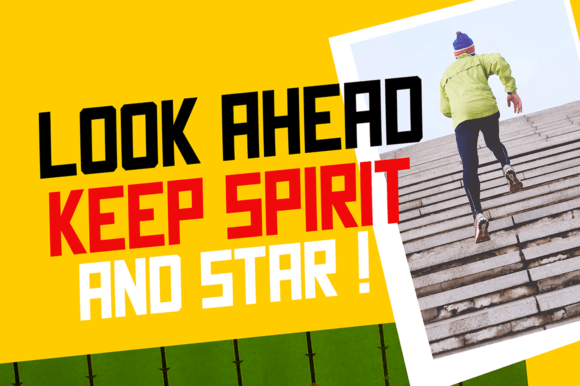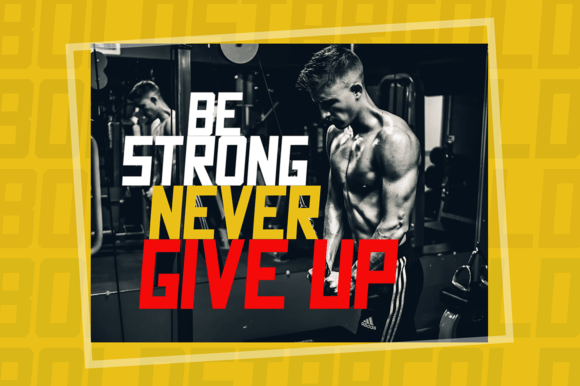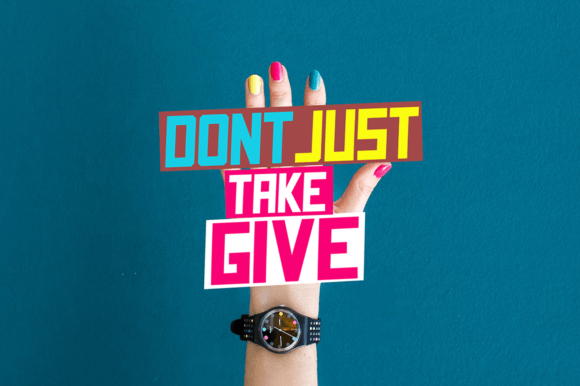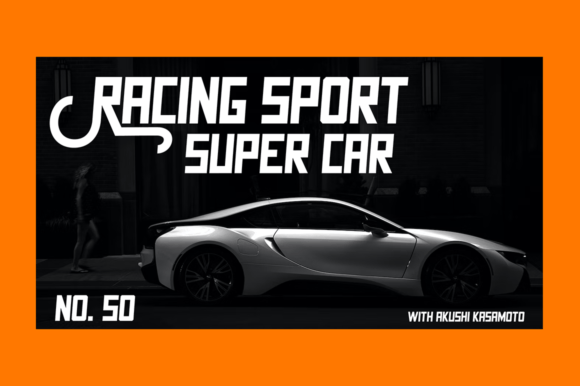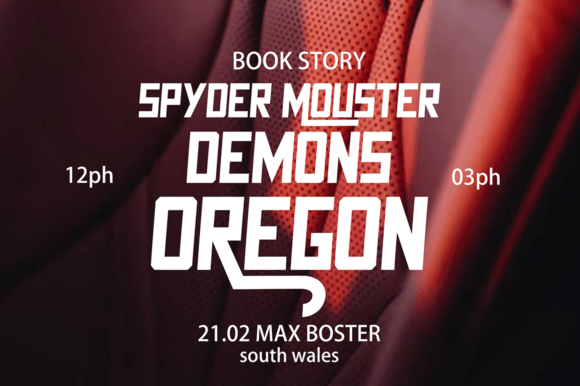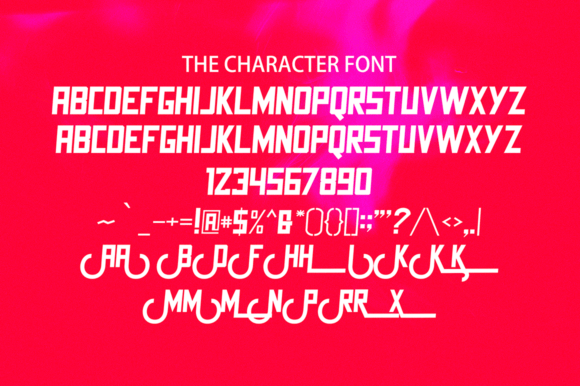
Unleash Your Creativity with Crash Demons Font: A Modern Display Powerhouse
In the realm of typography, few fonts manage to capture the essence of modernity and timelessness simultaneously. However, Crash Demons Font stands out as a remarkable exception, embodying both contemporary coolness and a classic appeal that refuses to fade. This article is your gateway to understanding the allure of Crash Demons and how it can elevate your design projects to spectacular heights.
The Distinctive Charm of Crash Demons Font
Crash Demons is not just another font; it’s an experience. Its incredibly distinct style is what sets it apart from the myriad of fonts available today. The moment you lay eyes on it, you’ll understand why it’s described as cool and modern. Each letter is crafted with precision, boasting a unique character that contributes to its timeless appeal. Whether you’re working on a branding project, crafting an eye-catching poster, or designing a captivating website, Crash Demons promises to add that extra oomph your design needs.
Why Crash Demons Should Be Your Go-To Display Font
So, what makes Crash Demons the perfect choice for your display font needs? Here are a few compelling reasons:
- Versatility: Despite its distinctiveness, Crash Demons is surprisingly versatile. It can be used across various design projects, from digital media to print, without losing its charm.
- Legibility: A display font needs to be attention-grabbing but also legible. Crash Demons strikes a perfect balance, ensuring that your message is conveyed clearly and stylishly.
- Emotional Connection: Fonts have the power to evoke emotions. Crash Demons, with its modern yet timeless vibe, can help you connect with your audience on a deeper level, making your designs more memorable.
Creative Applications of Crash Demons Font
The possibilities are endless when it comes to using Crash Demons in your designs. Here are a few ideas to get you started:
- Branding: Create a lasting impression with your brand’s logo or marketing materials. Crash Demons can help you stand out in a crowded market.
- Web Design: Use Crash Demons as a headline font to draw visitors in. Its modern appeal is sure to make your website’s header sections pop.
- Social Media Graphics: Whether it’s an Instagram post, a Facebook banner, or a Twitter header, Crash Demons can add a professional and trendy touch to your social media presence.
- Packaging: For crafters and product designers, Crash Demons can be a fantastic addition to your product labels or packaging, giving them a distinctive look.
Tips for Maximizing Crash Demons’ Potential
To truly fall in love with Crash Demons and make the most out of its unique style, consider the following tips:
- Experiment with Colors: Play around with different color schemes to find the perfect match for your design and the vibe you’re aiming for.
- Pair it Wisely: When using Crash Demons alongside other fonts, ensure there’s a good contrast. A simple, clean font can provide a nice balance to Crash Demons’ distinctiveness.
- Adjust and Customize: Don’t be afraid to tweak the font size, spacing, or even slightly adjust the letters to fit your design’s needs.
| Font Name | Crash Demons Font |
| Author | gianstudio12 |
Crash Demons Font is more than just a typographic choice; it’s a statement. Its cool, modern, and timeless style can breathe life into your designs, making them not just visually appealing but also memorable. Whether you’re a professional designer or a DIY enthusiast, Crash Demons offers a world of creative possibilities. So, fall in love with its distinct charm and let it guide you in creating spectacular designs that leave a lasting impression.